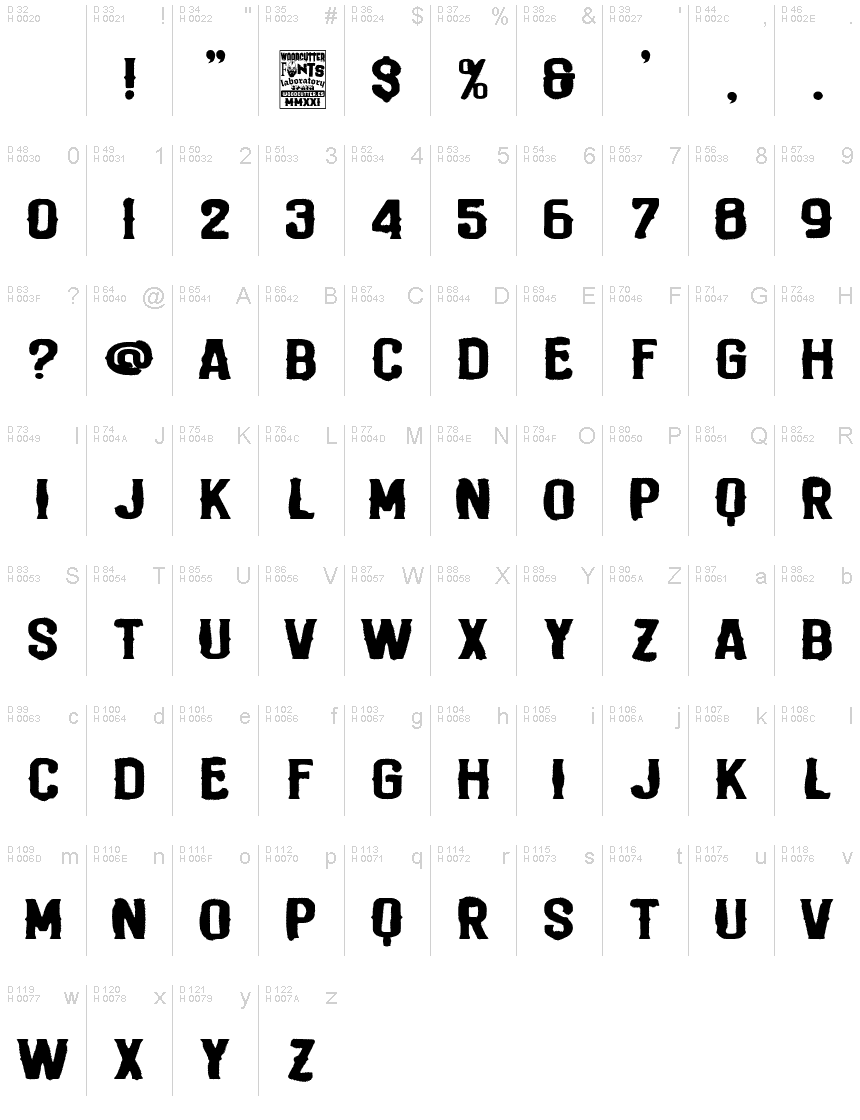
Renegades Rocks
Renegades Rocks is a bold and edgy display font designed by Woodcutter, perfect for projects that demand attention. Its eroded style gives it a rugged and rebellious feel, making it a great choice for rock bands, streetwear brands, or any project looking to convey an attitude of defiance. With its thick and sturdy letters, this semi-bold font can hold its own on posters, album covers, or even logos. Renegades Rocks is suitable for any project that needs a touch of grit and determination to make a statement.